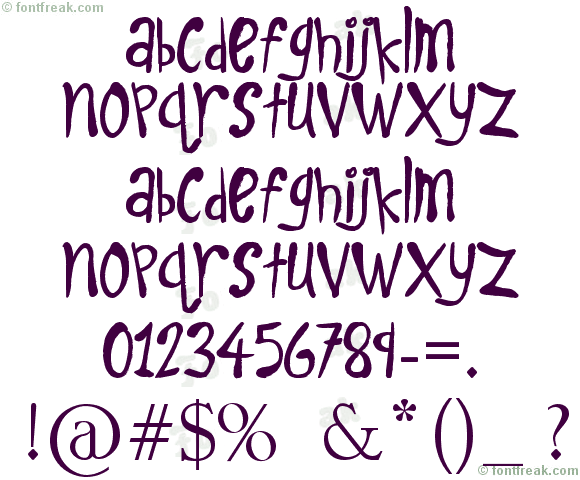
Kids Play
The Kids Play font by Jonathan S. Harris is a delightful display typeface that exudes a playful and whimsical charm. This font stands out with its handwritten style, characterized by uneven stroke weights that contribute to its organic feel. The letters feature a fun, bouncy quality, with rounded edges and a casual, informal appearance that captures the essence of childhood playfulness. The spacing between the characters is designed to maintain legibility while still conveying a sense of movement and excitement, making it an ideal choice for projects aimed at a younger audience.
The Kids Play font is versatile and can be effectively used in a variety of contexts. It is perfect for children's book covers, where its lively character can draw in young readers. Additionally, it can enhance birthday party invitations, adding a festive touch that reflects the joy of celebrating childhood milestones. Graphic designers may also find it suitable for educational materials or websites targeting kids, as it evokes a sense of fun and creativity. Small business owners in the children’s retail space can use this font in branding and marketing materials, ensuring their products stand out in a competitive market.
Targeting graphic designers, small business owners, and content creators, the Kids Play font free download offers an accessible option for those looking to infuse their projects with a sense of joy and creativity. Its unique style not only captures attention but also resonates with its audience, making it a standout choice in any design. With its combination of whimsy and readability, the Kids Play font is sure to elevate your creative endeavors and bring a touch of childhood magic to your work.